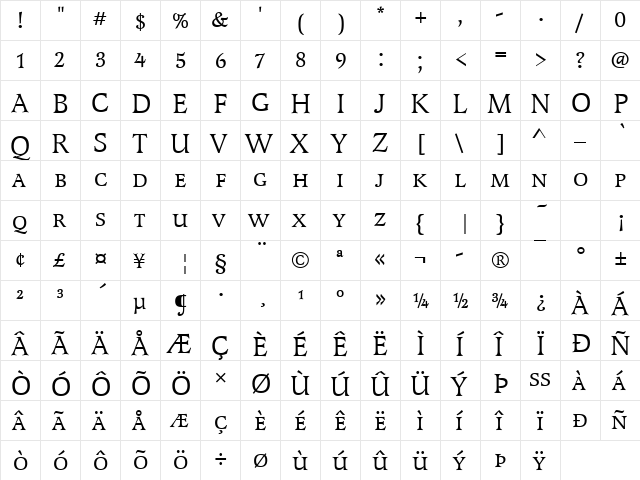
Latienne Becker Discaps Regular Font Preview
Latienne Becker Discaps Regular
Design Context for Latienne Becker Discaps Typeface
Latienne Becker Discaps takes a measured approach to typography — its balanced proportions and neutral character make it a reliable workhorse for both digital and print work.